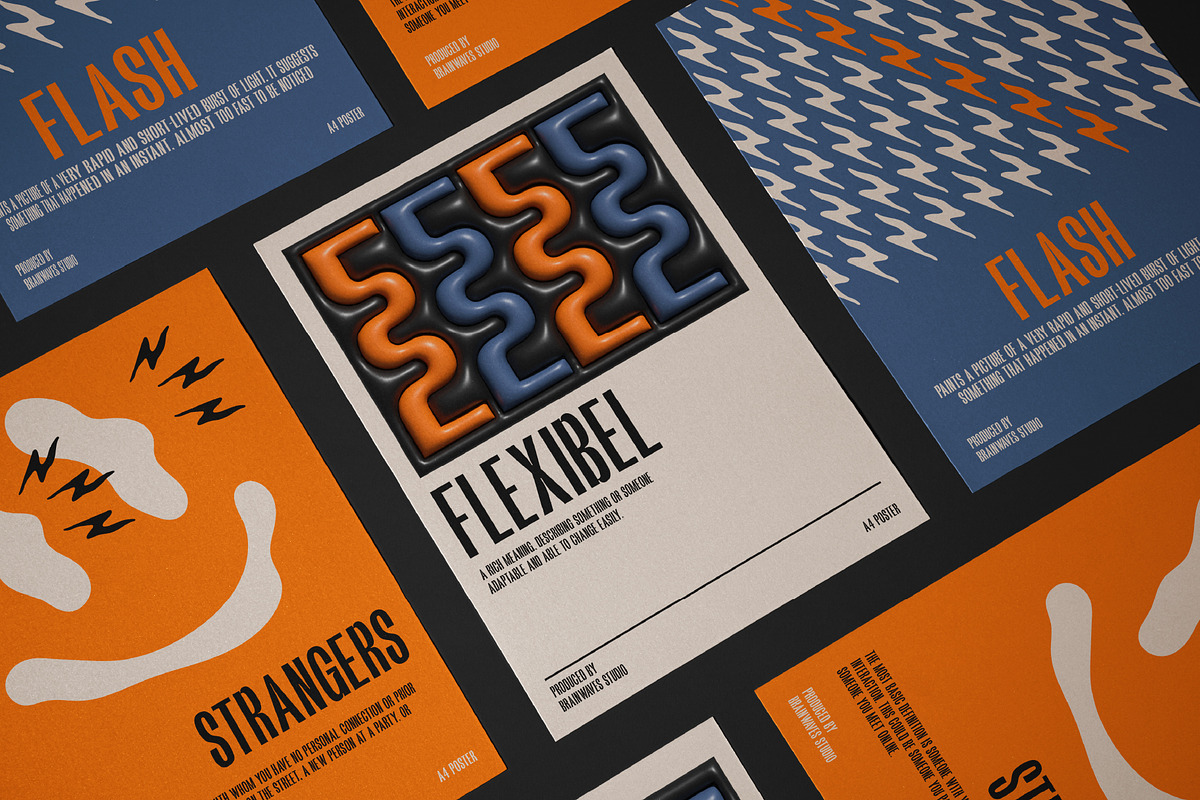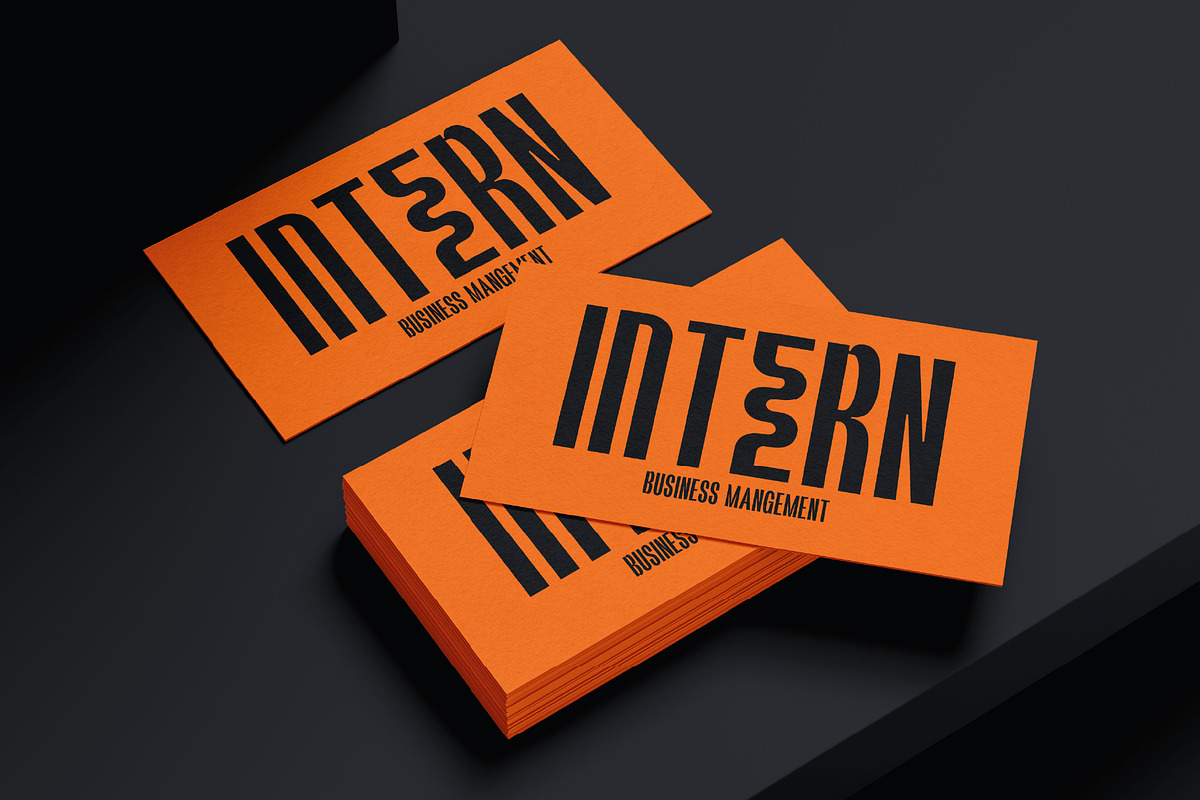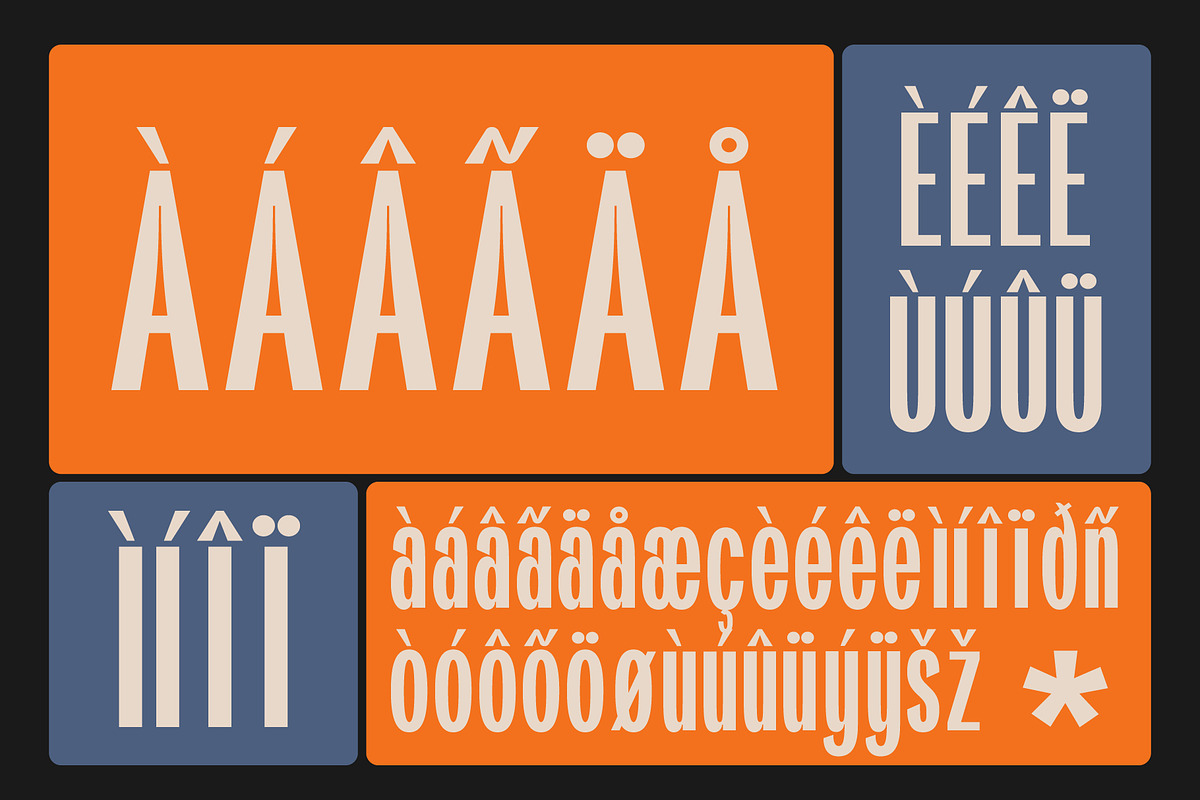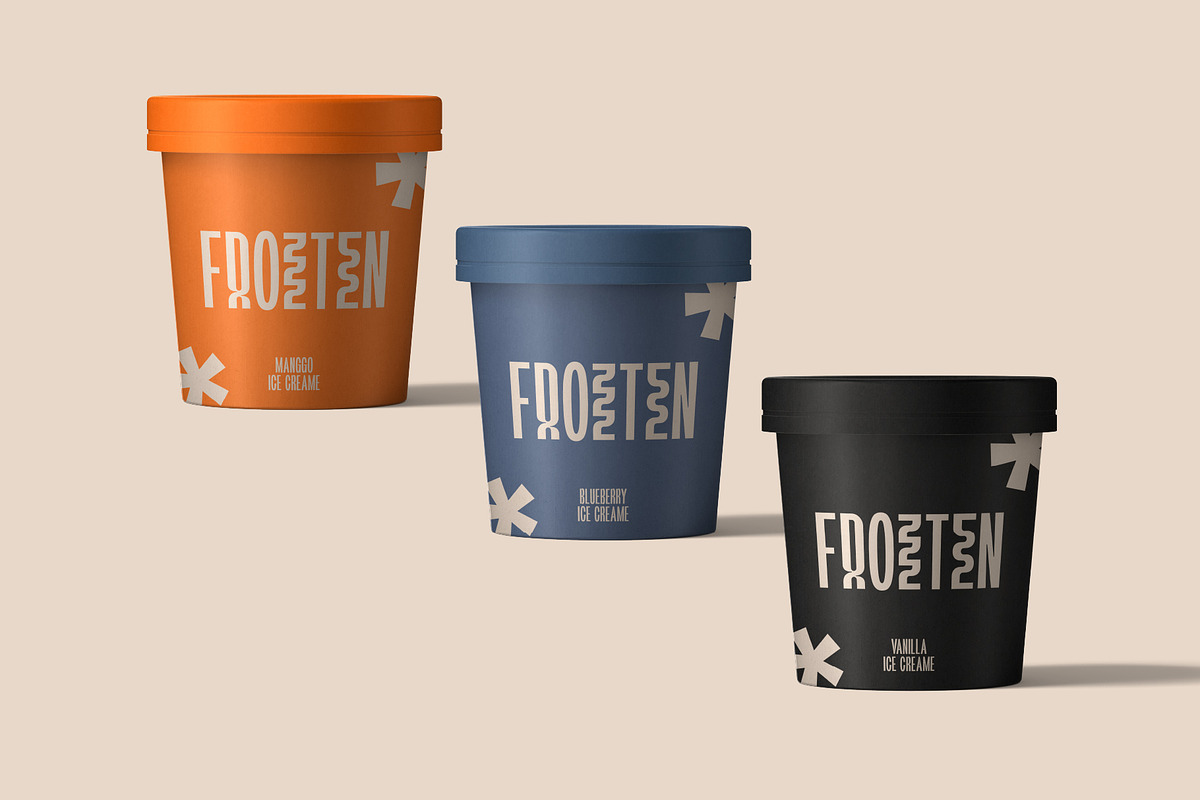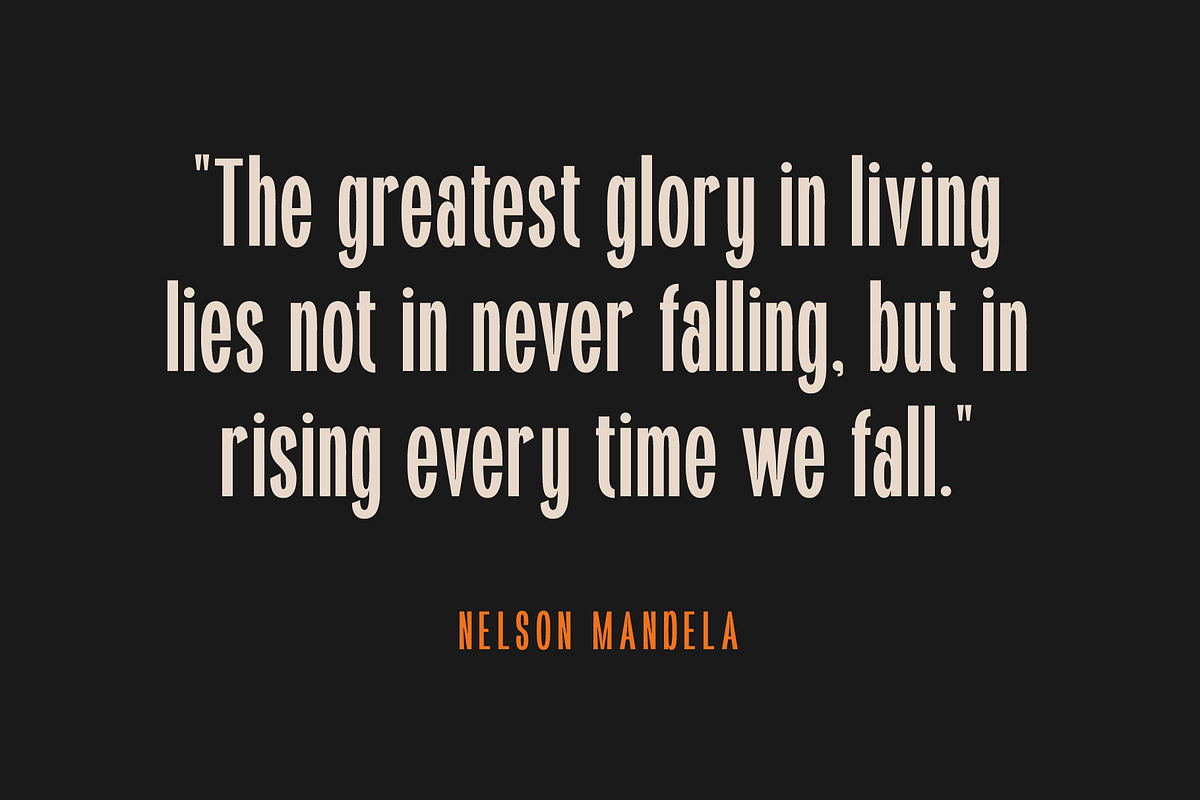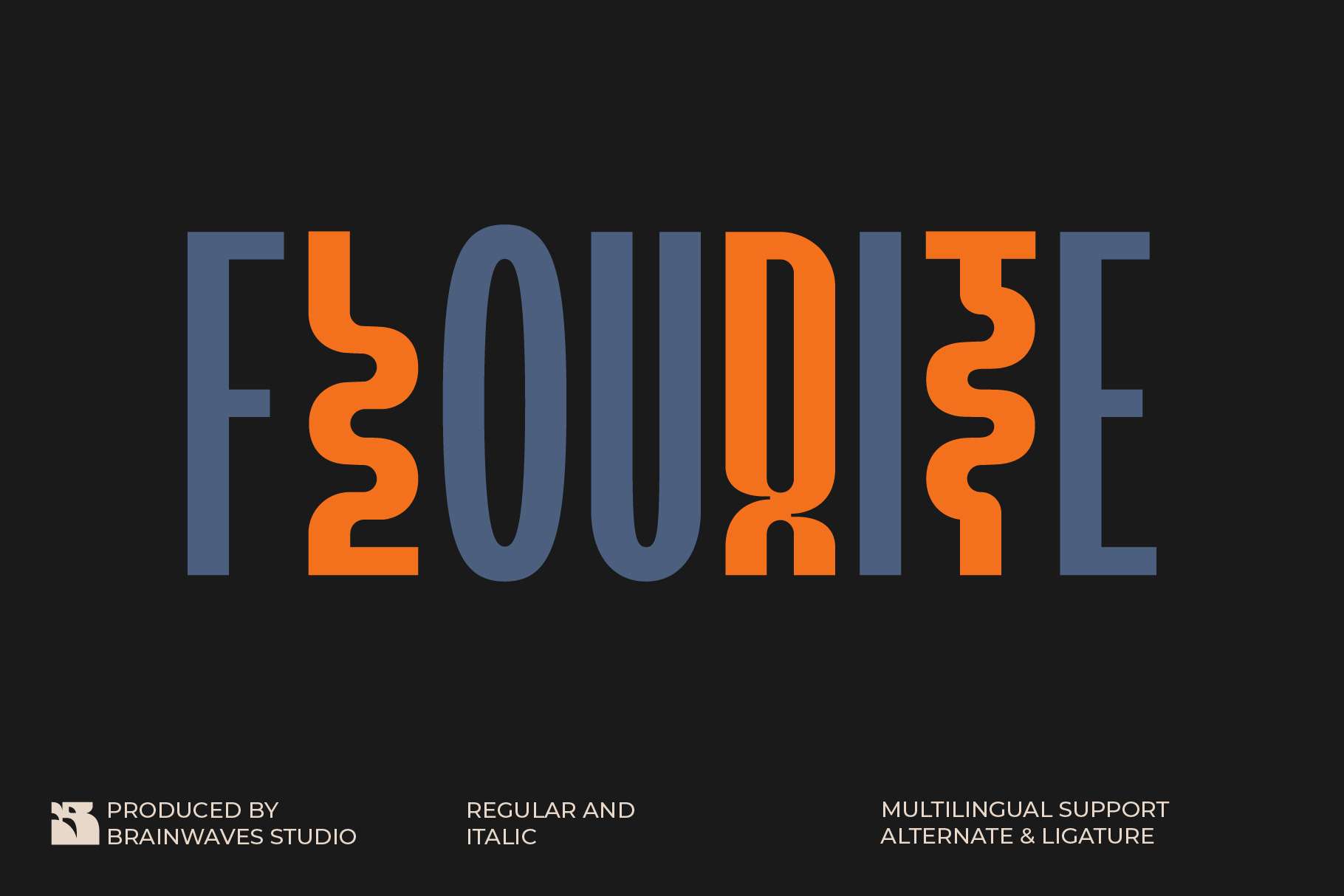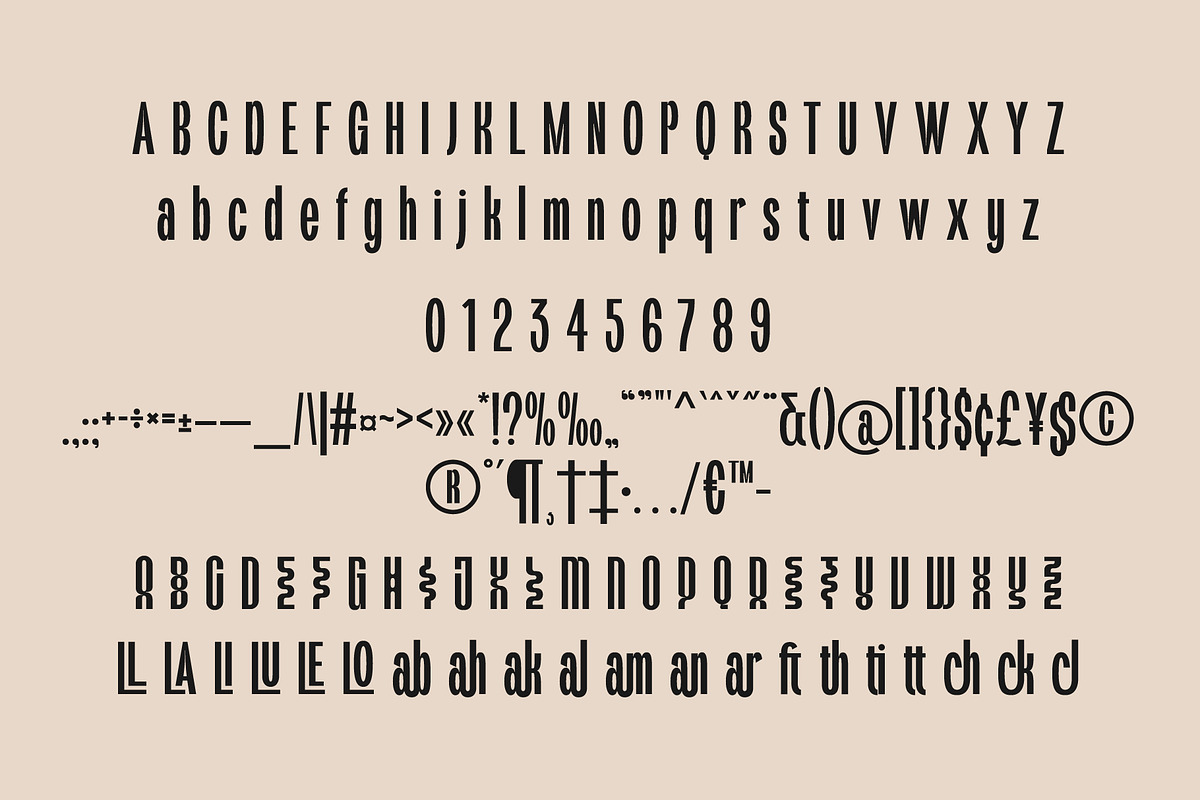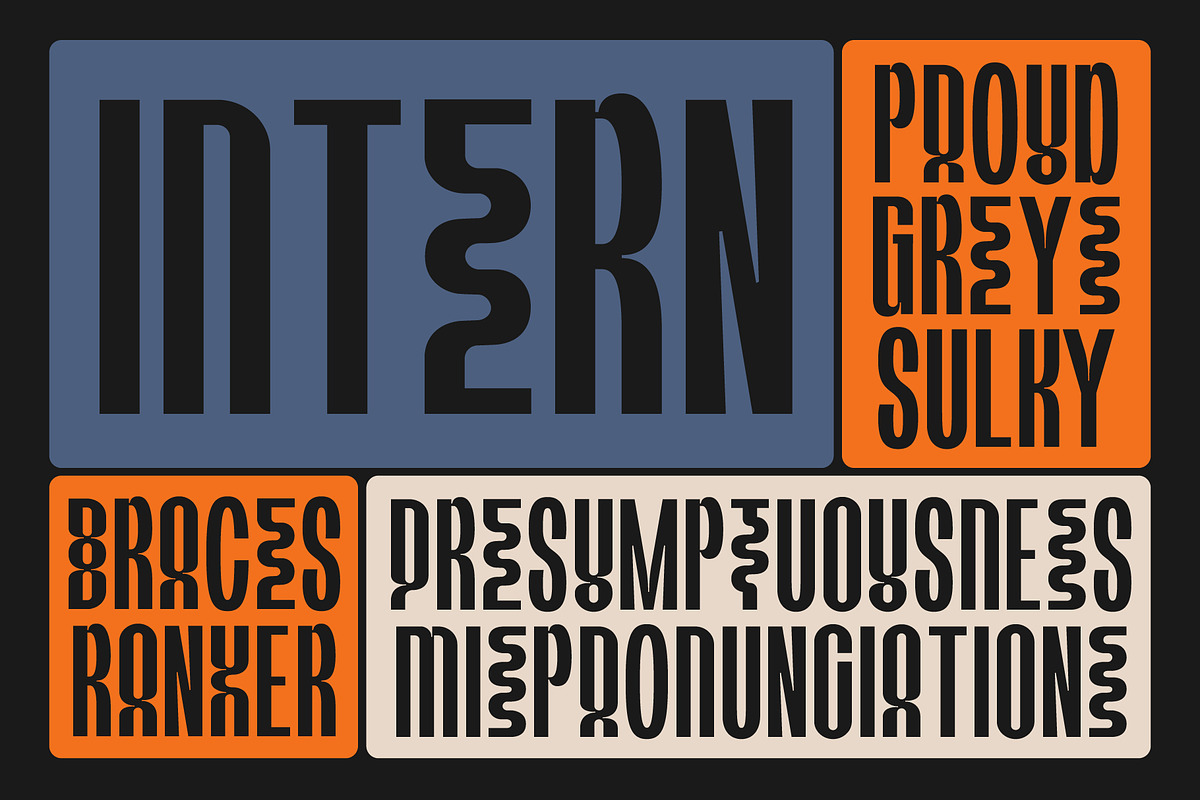
Flourite Font – Bold Condensed Displ
Flourite is a bold and stylish condensed sans serif display font that brings energy and uniqueness to every design. With its playful wave ligatures and sharp vertical elegance, it’s made to grab attention and tell stories visually. Whether you’re branding a product or designing scroll-stopping social media graphics, Flourite helps your message stand out with character.
Perfect for modern packaging, editorial layouts, logos, and more – Flourite makes typography fun, bold, and expressive.
Why You'll Love Flourite
- Unique zigzag ligatures & alternates for custom-looking words
- Smooth vertical geometry for strong alignment & aesthetic flow
- Regular & Italic styles included
- Full set of multilingual glyphs and symbols
- Great readability in narrow spaces
- Ideal for logos, posters, packaging, and editorial use
- Give your designs a touch of bold personality with Flourite!
Suitable For
- Ice cream or beverage packaging
- Modern event posters or festival flyers
- Canva templates for social media
- Fashion or tech brand logos
- Business cards for creatives
- Youth-focused editorial or magazine layouts